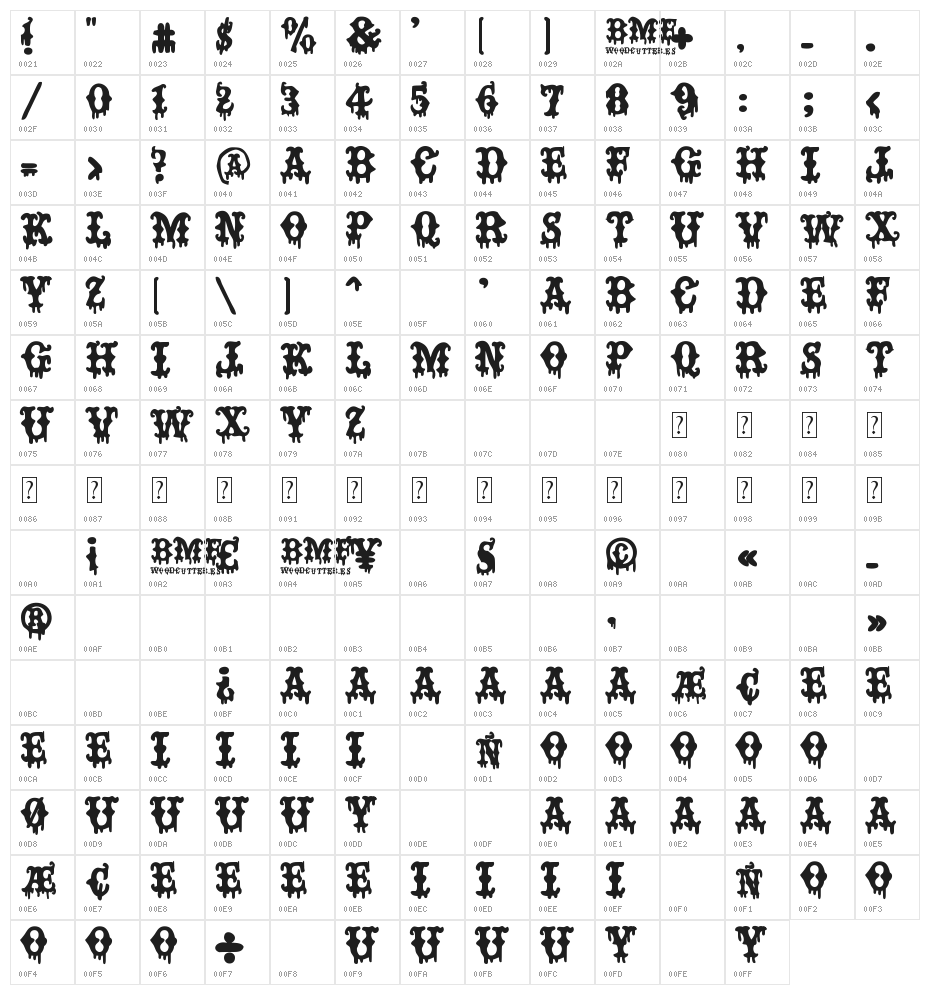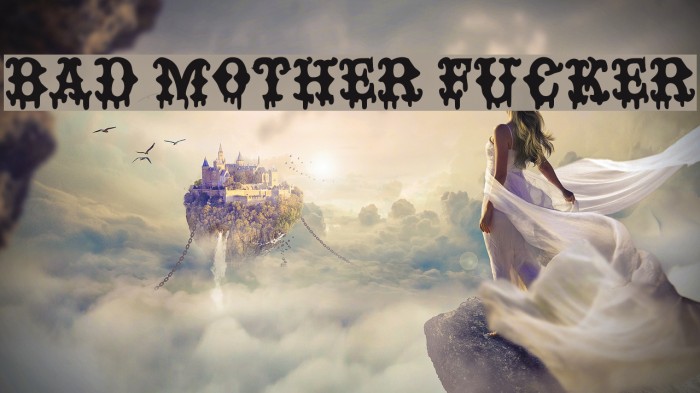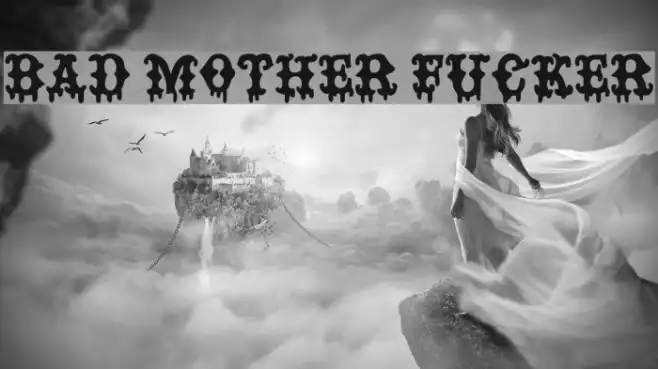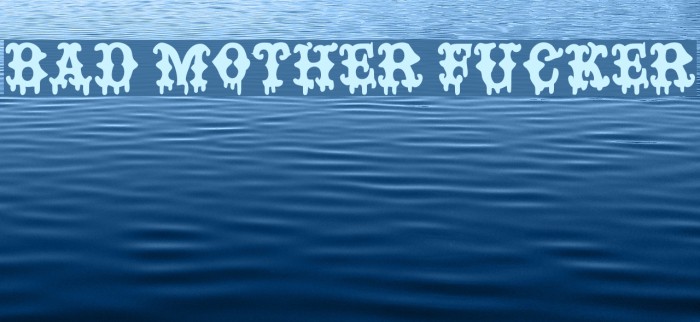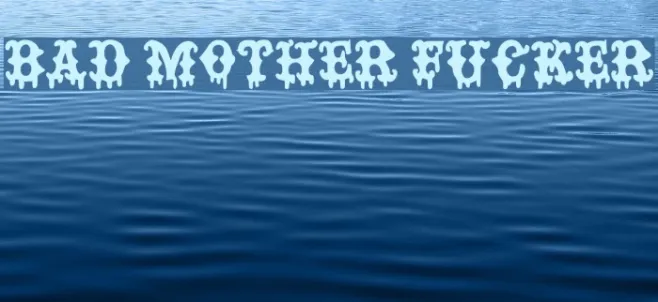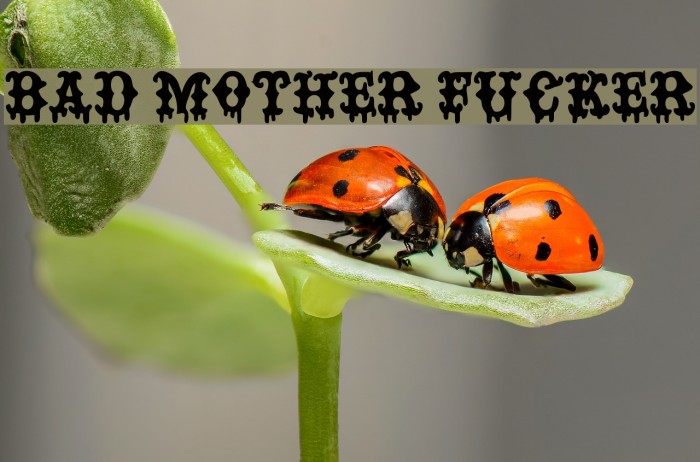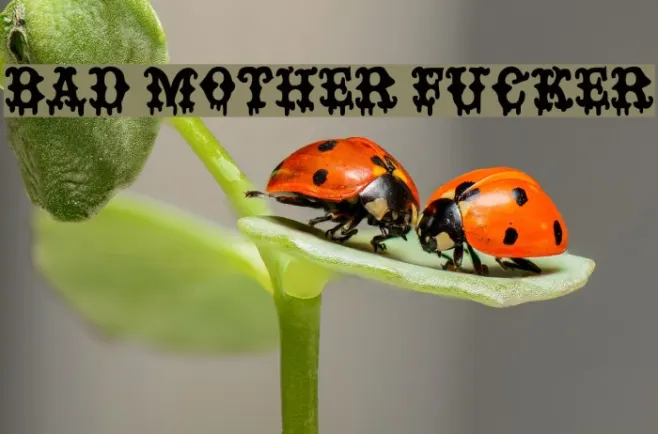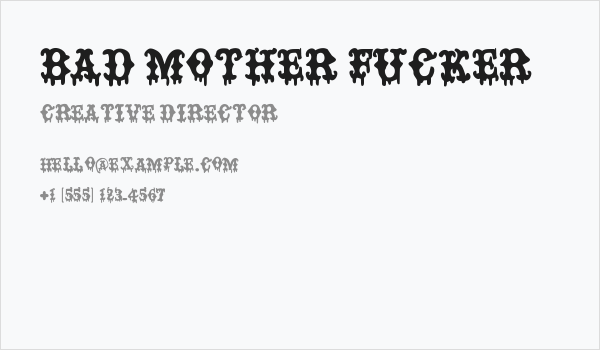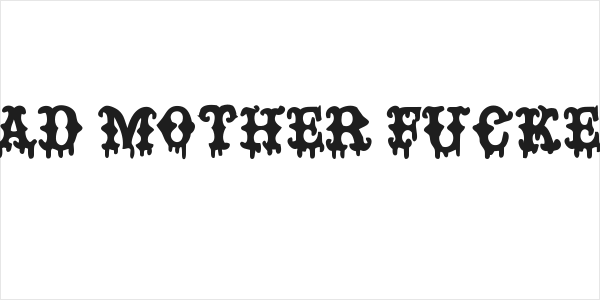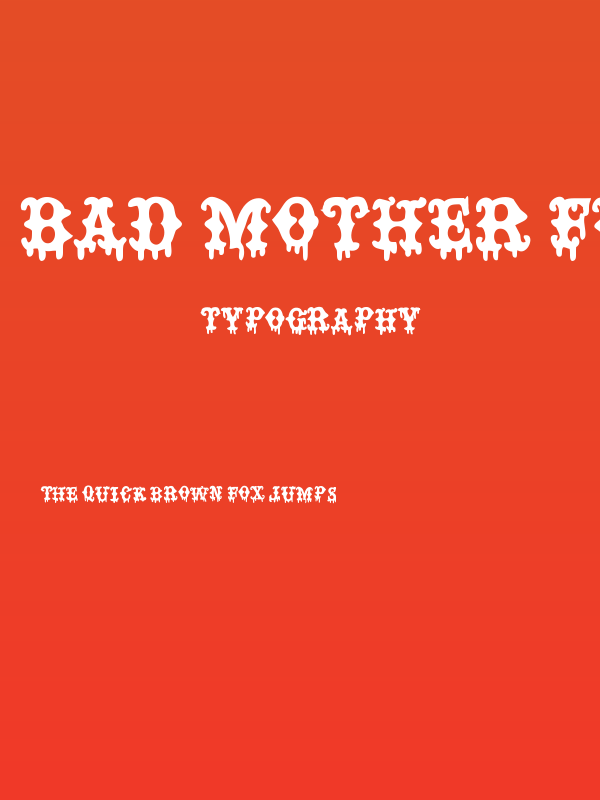
BAD MOTHER FUCKER Font
BAD MOTHER FUCKER Description
This font features a bold and dramatic style with a dripping effect that gives it a unique, edgy appearance. The characters are thick and robust, with a playful yet slightly ominous vibe. The dripping elements add a sense of movement and fluidity, making it stand out for creative and unconventional designs. Its distinctiveness makes it suitable for projects that require a strong visual impact. The font is highly decorative, with each letter appearing as if it is melting or dripping, which adds to its overall dynamic and artistic appeal.
| Proposed Projects | Ideal for horror-themed posters, Halloween invitations, edgy branding, or any project needing a bold, eye-catching typeface. |